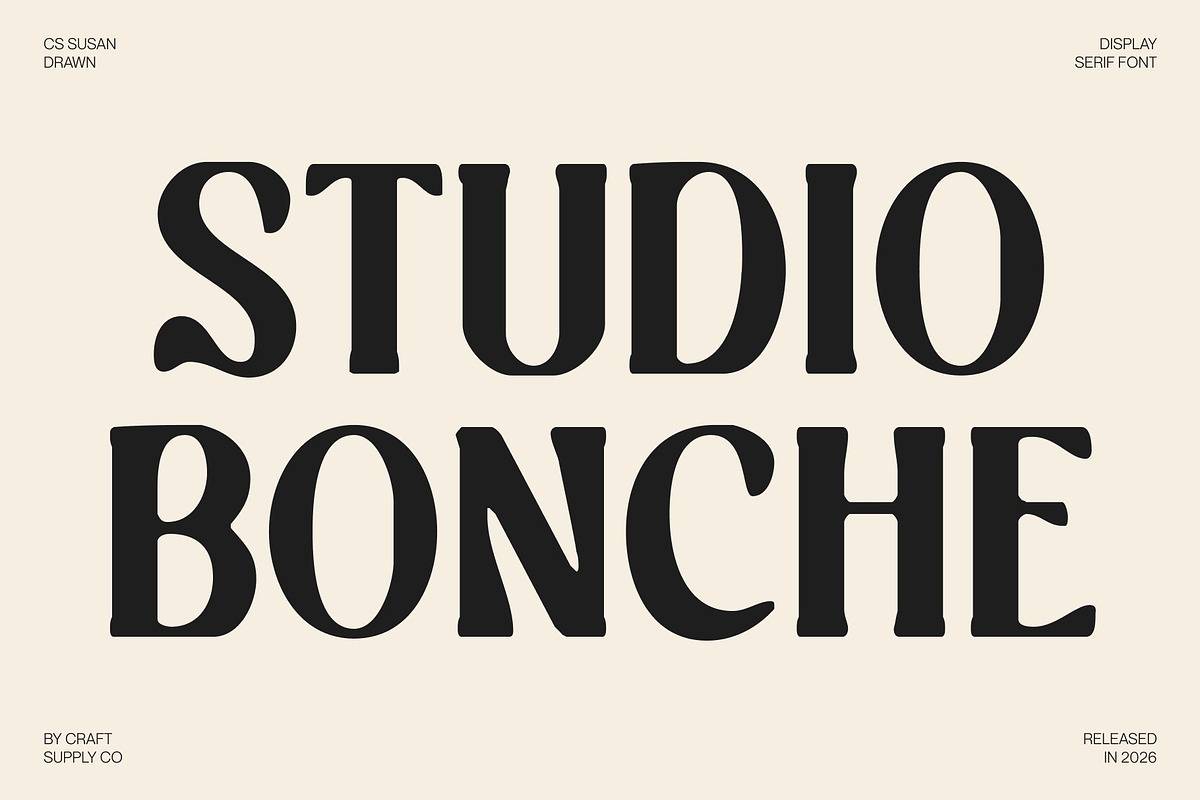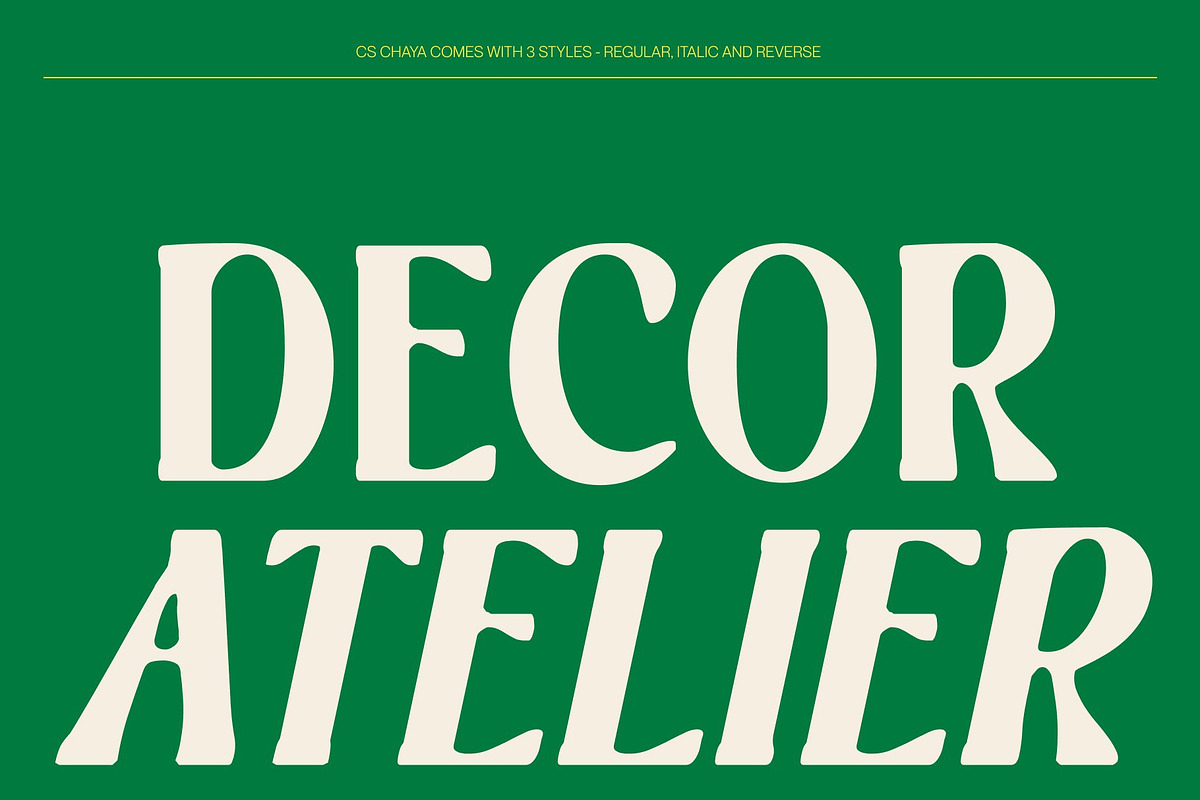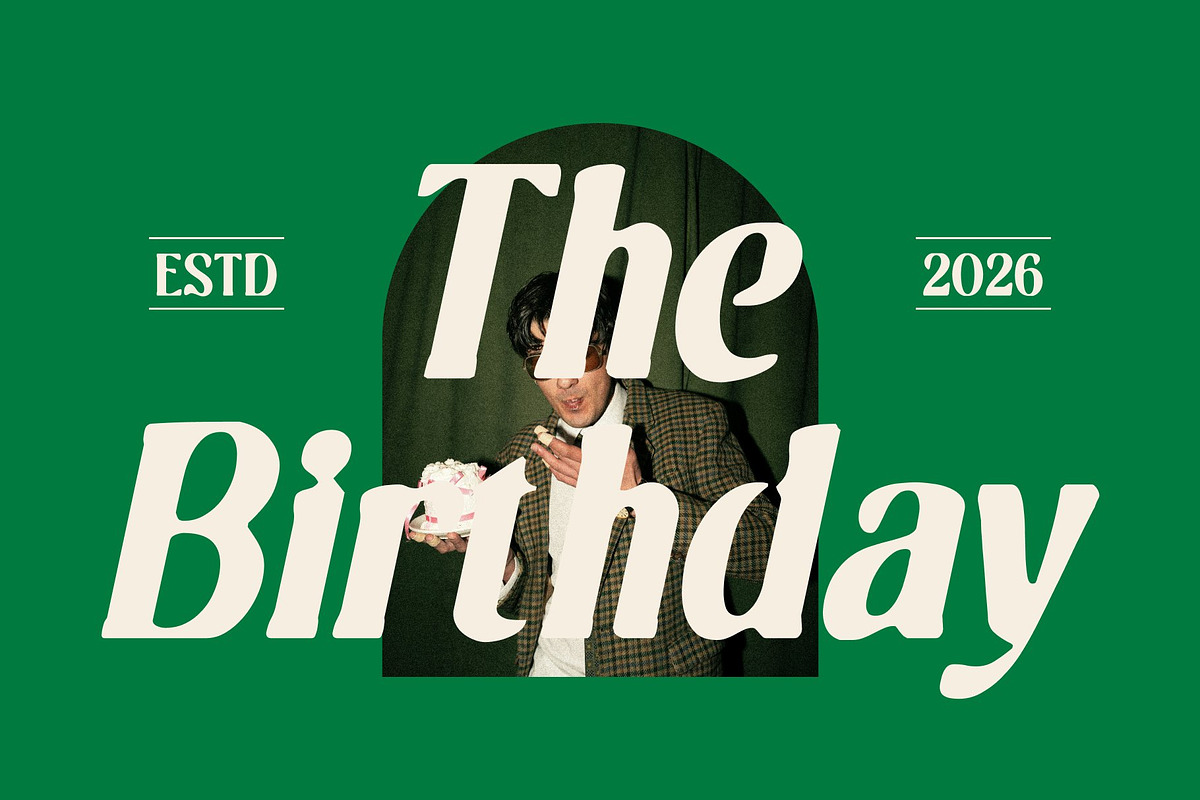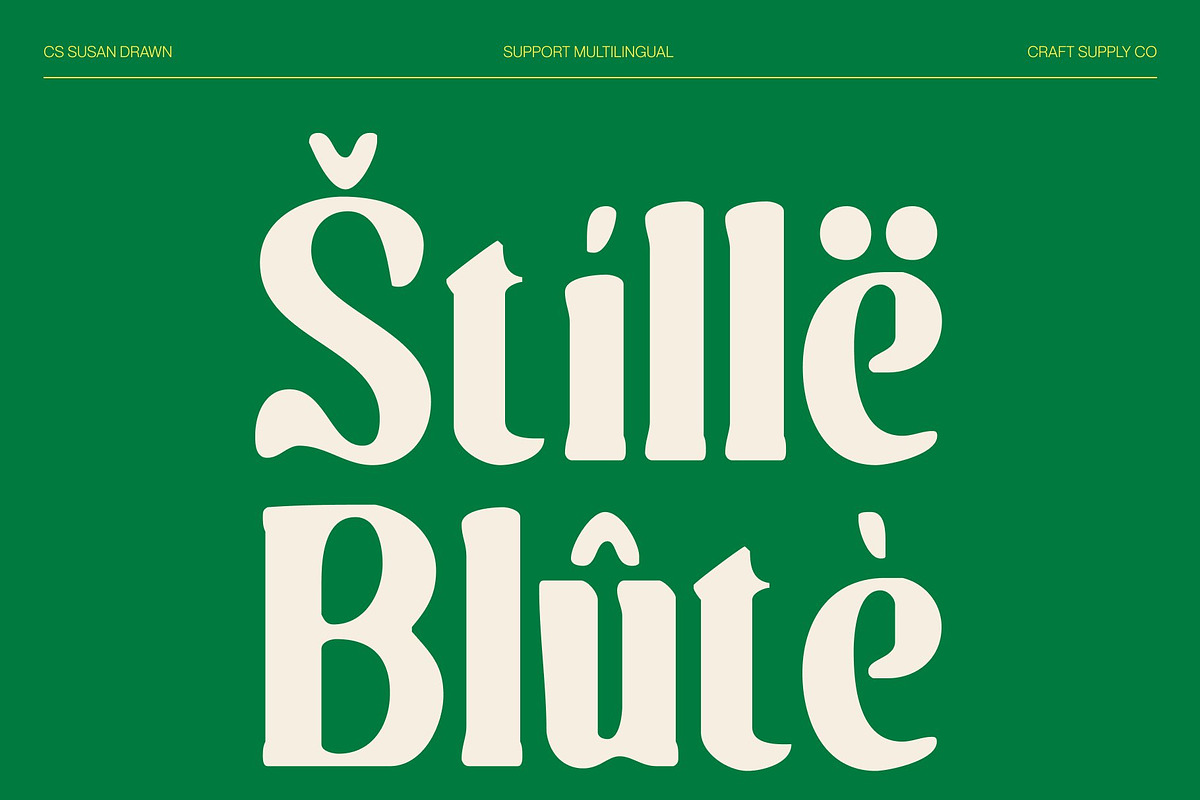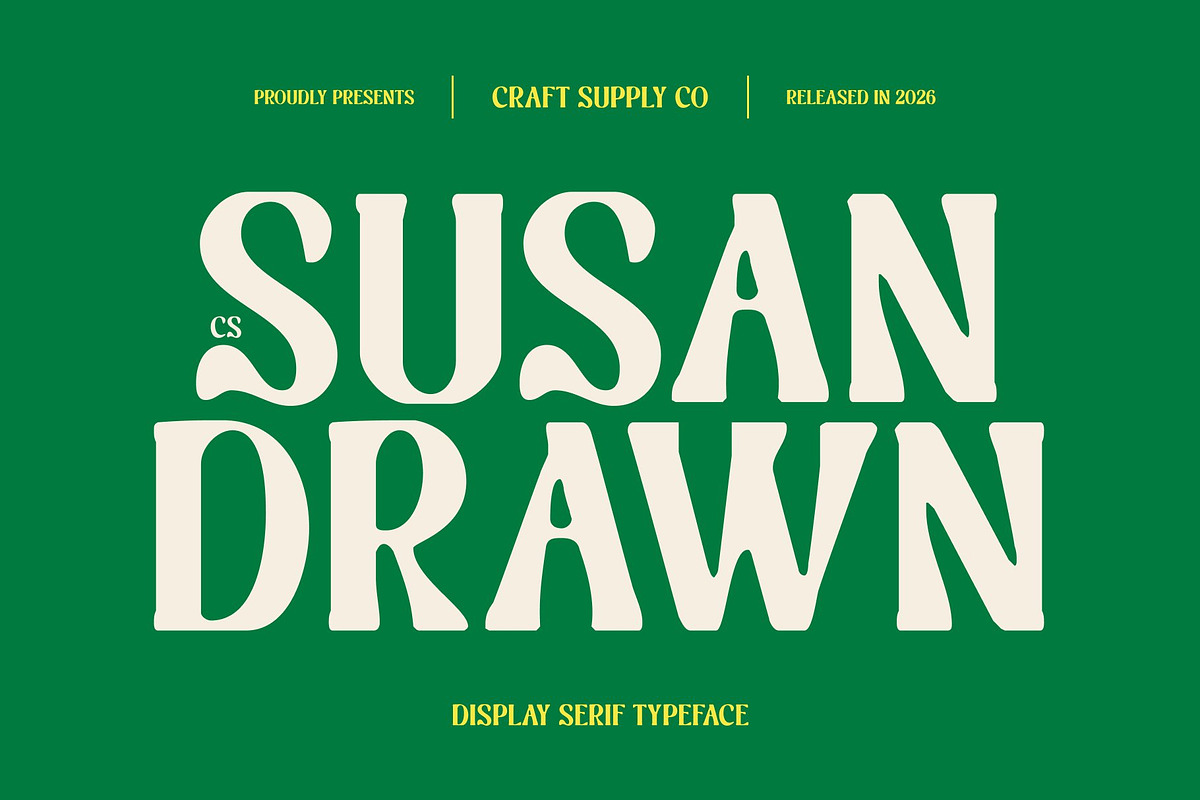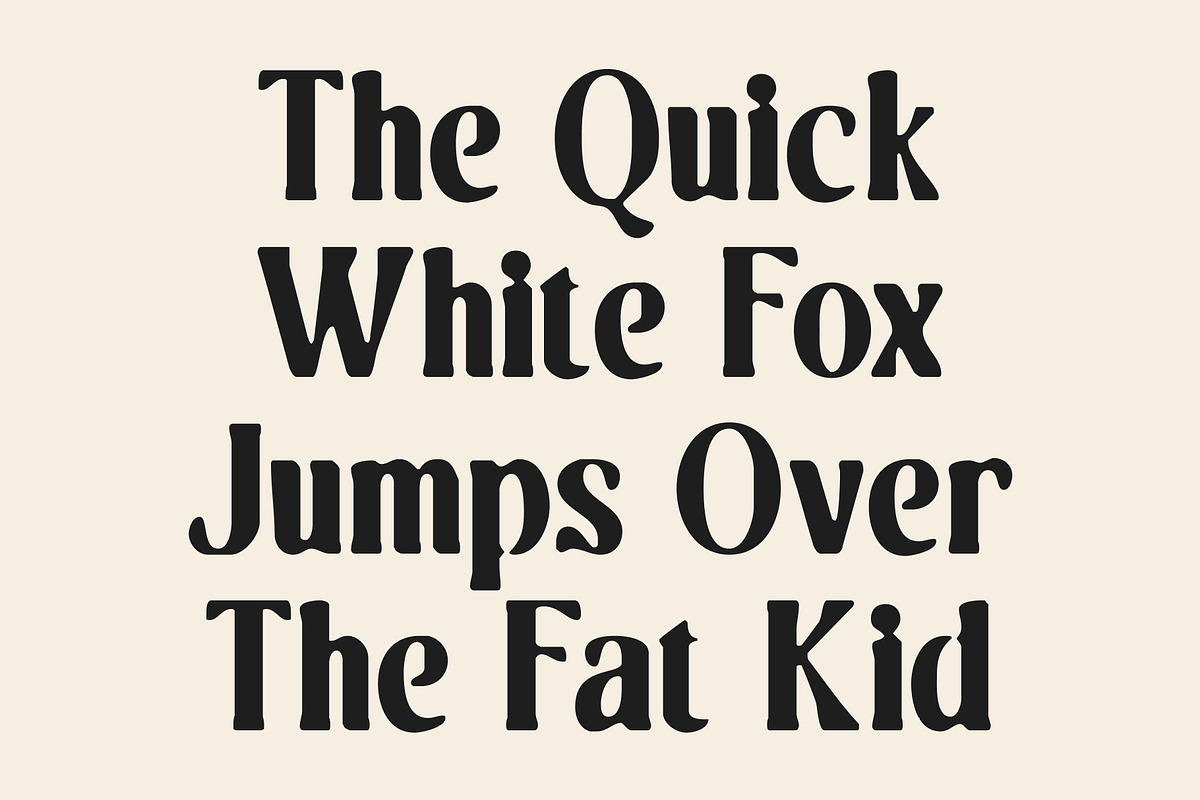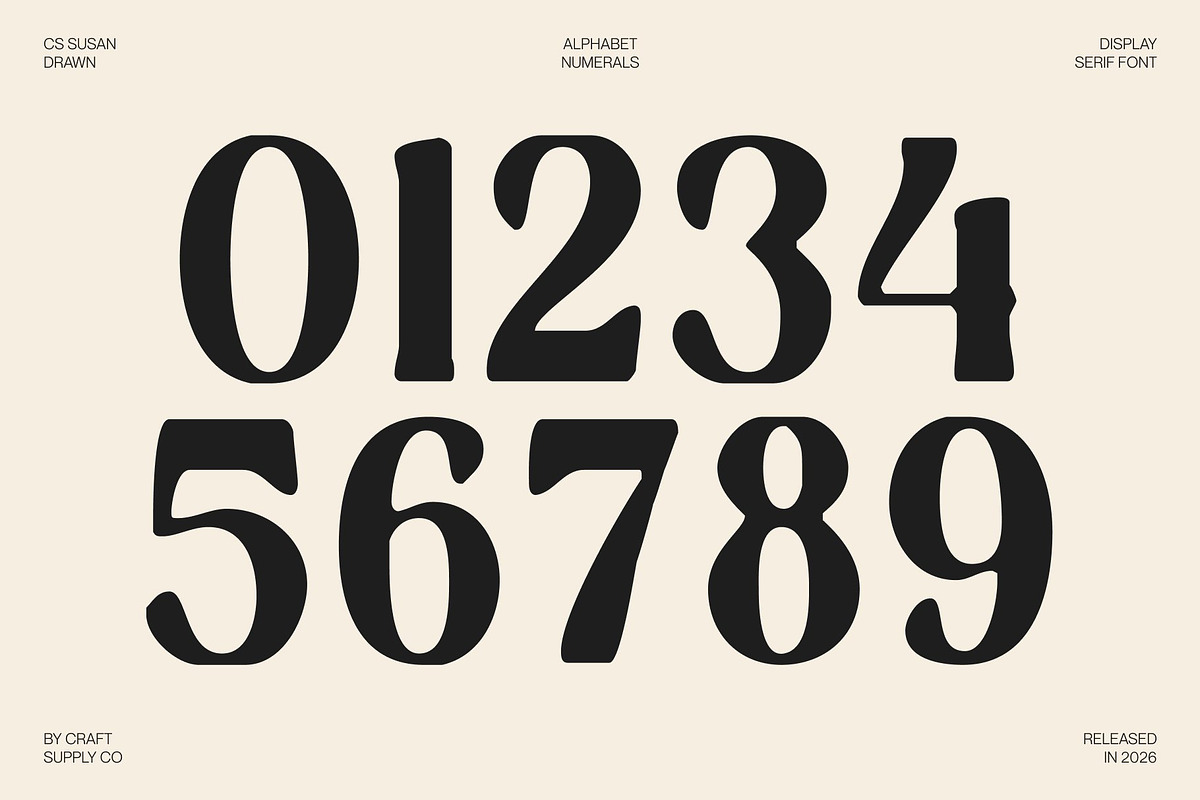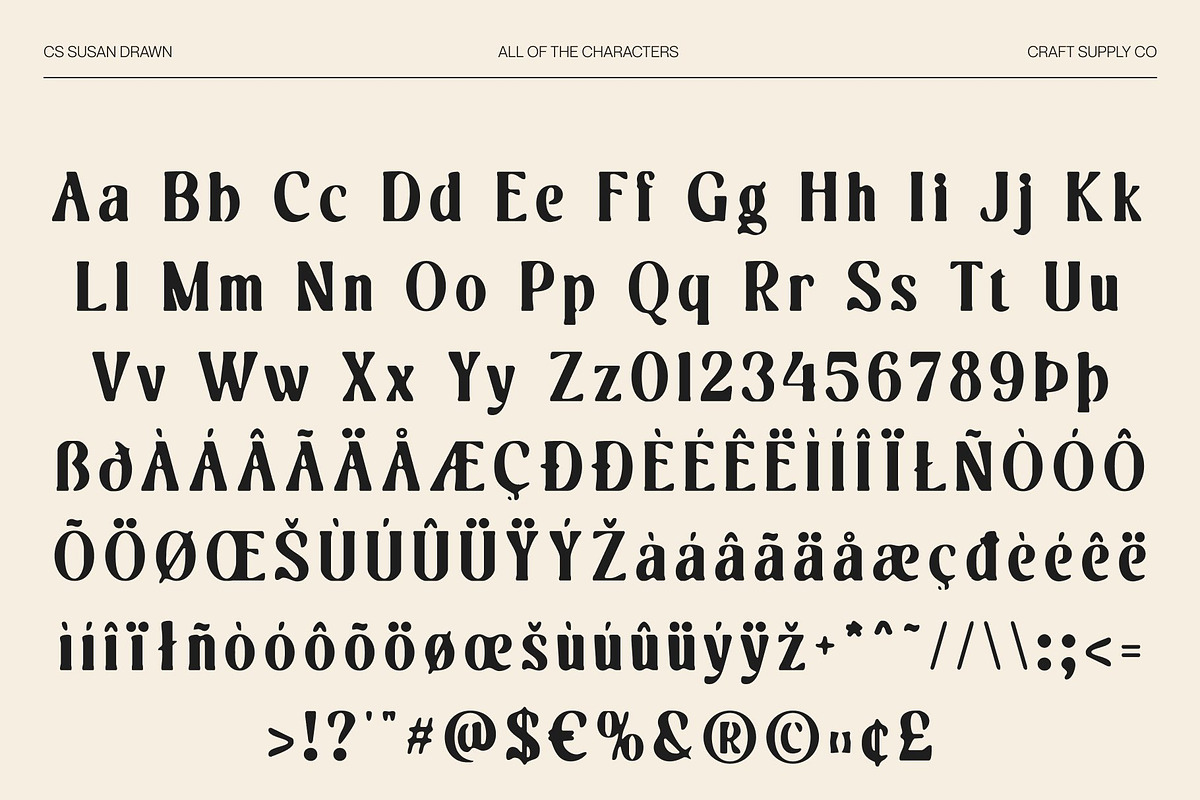
CS Susan Drawn
CS Susan Drawn – Stylistic Serif with Timeless Artistic Character Modern Classic Serif with Hand-Drawn Expression This is a stylistic serif font that blends modern sensibility with classic elegance, enriched by a subtle hand-drawn texture. Built on refined serif foundations, it introduces an artistic nuance that feels timeless yet distinctive. The drawn finish adds warmth and depth, giving each letterform a natural, expressive touch while maintaining a sophisticated structure.
Artistic Details with Expressive Ligatures One of the defining features of this font is its unique ligatures, crafted to add personality and visual intrigue. These artistic connections create a graceful rhythm across words, transforming typography into a statement element. Enhanced by gentle handcrafted variations, the ligatures feel organic and fluid without compromising clarity or readability.
Timeless Beauty with Creative Character Carefully balanced proportions and elegant curves give the font a sense of enduring beauty. The combination of stylistic detailing and drawn texture introduces a creative edge, allowing designs to feel premium and expressive at the same time. It carries a confident, refined personality that stands out with quiet artistry.
Perfect for Logos and Editorial Design Ideal for logos, editorial layouts, posters, packaging, and branding identities, this font excels in projects that seek a creative and high-end aesthetic. Its refined serif form paired with artistic ligatures delivers a distinctive typographic voice imaginative, elegant, and timelessly stylish.